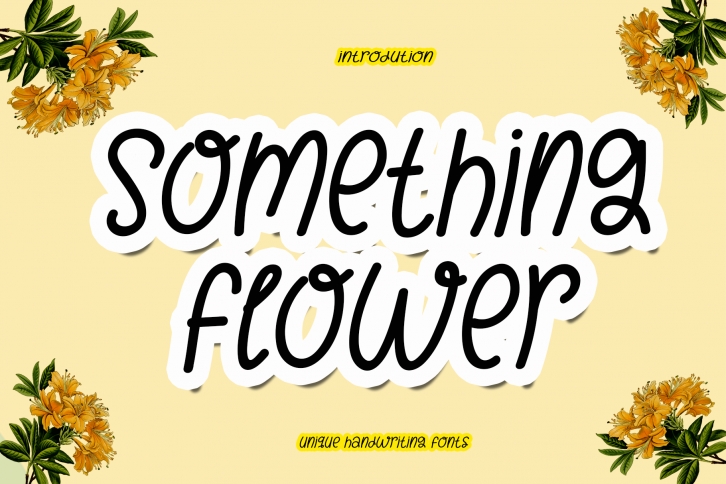
Something Flower is a cute, cheery and friendly handwritten font. It can easily be matched to an incredibly large set of projects, so add it to your creative ideas and notice how it makes them stand out!